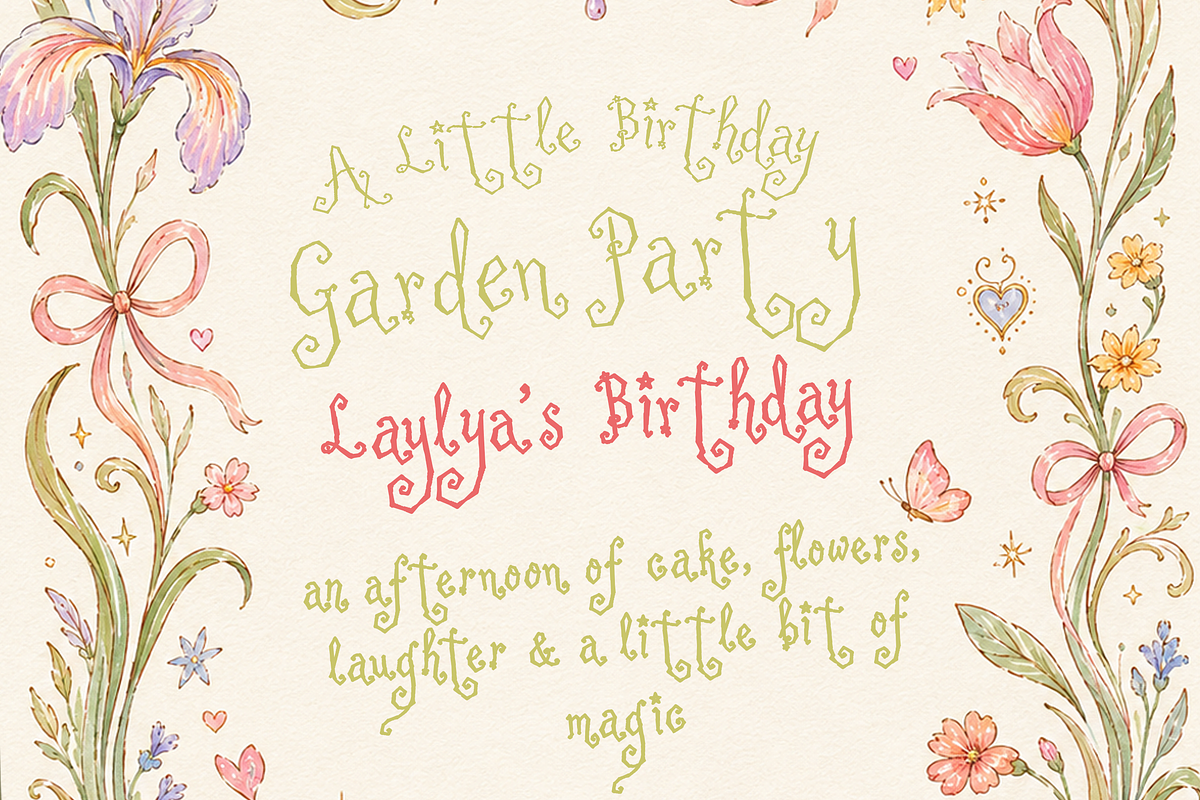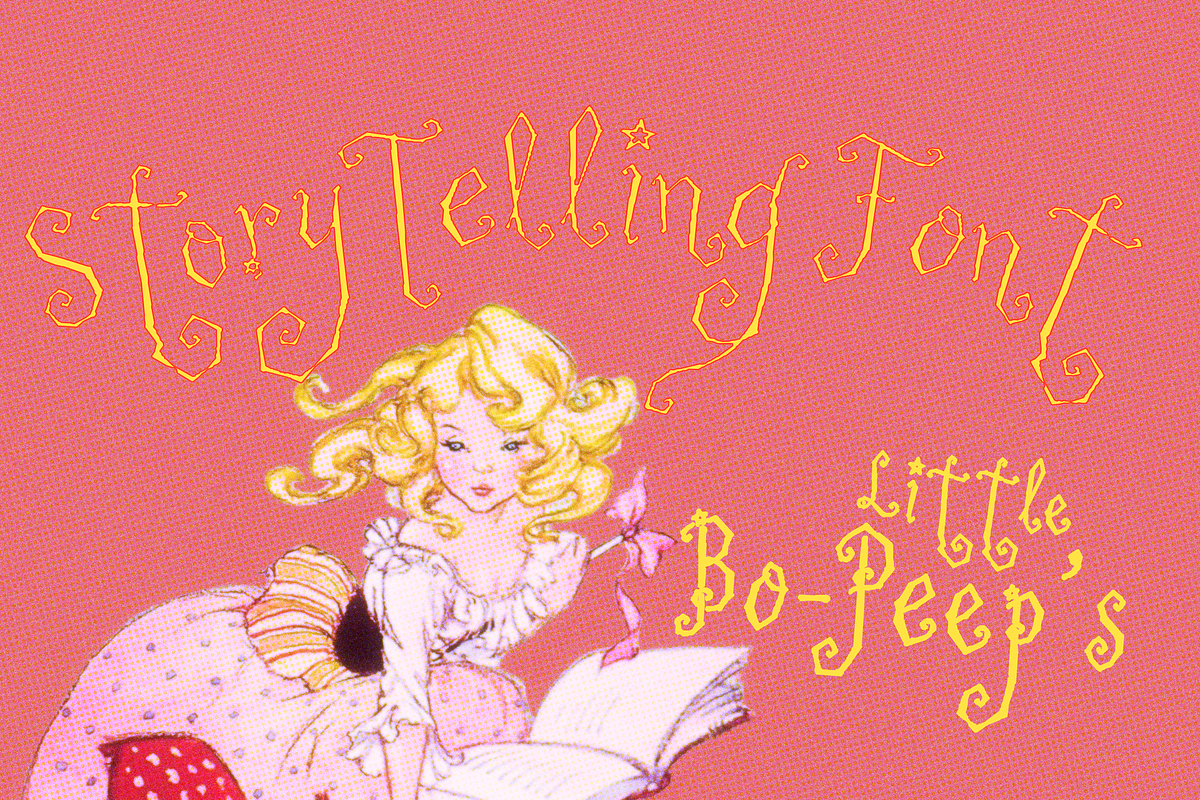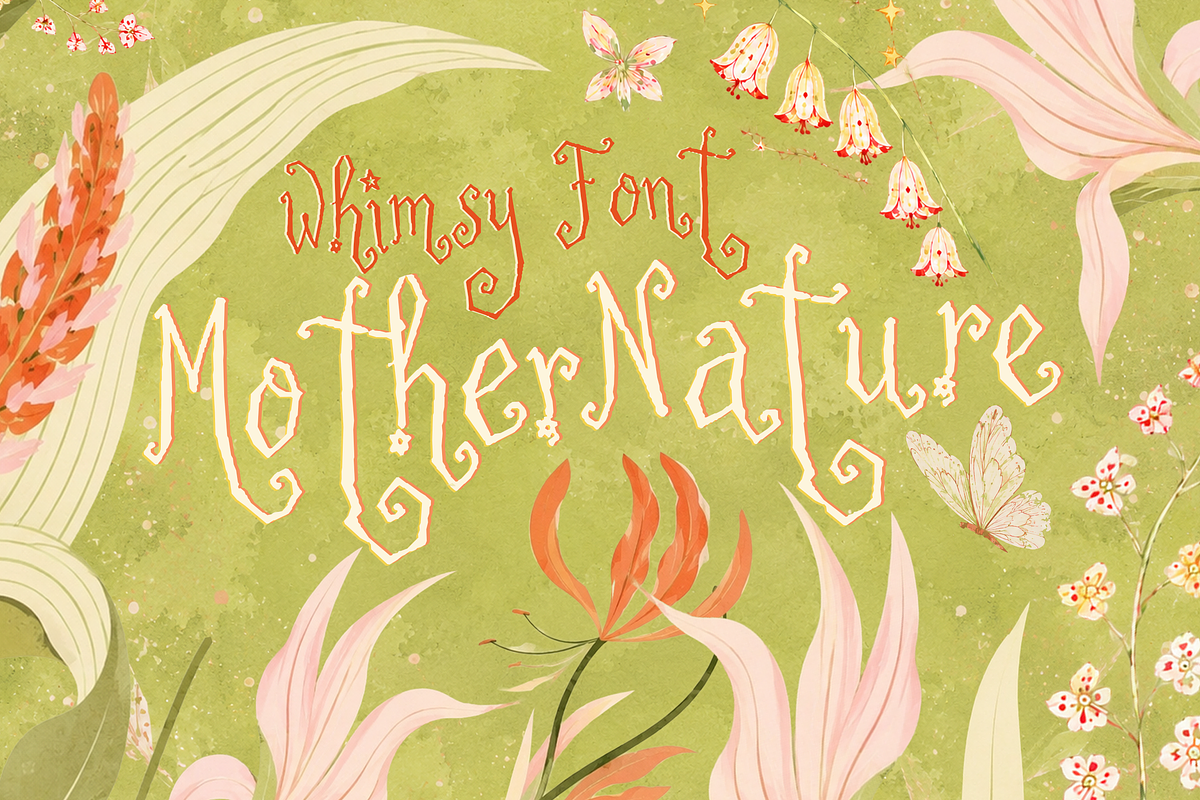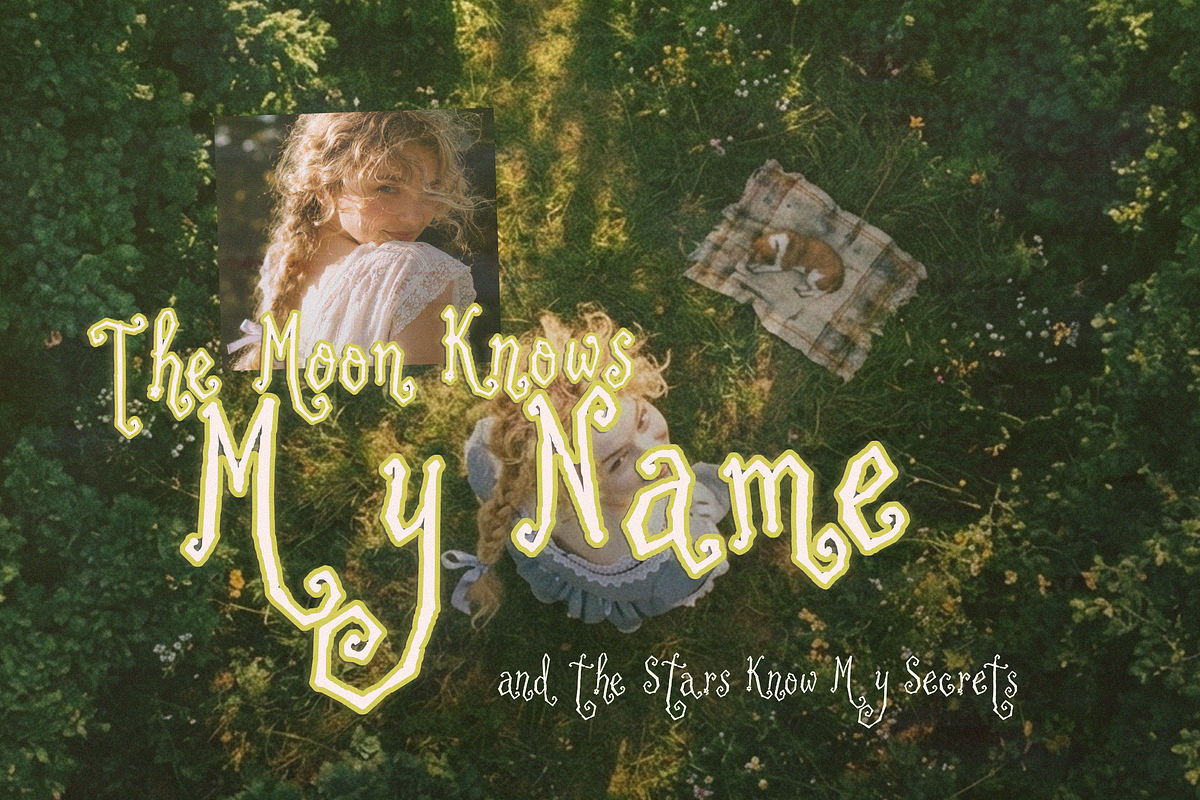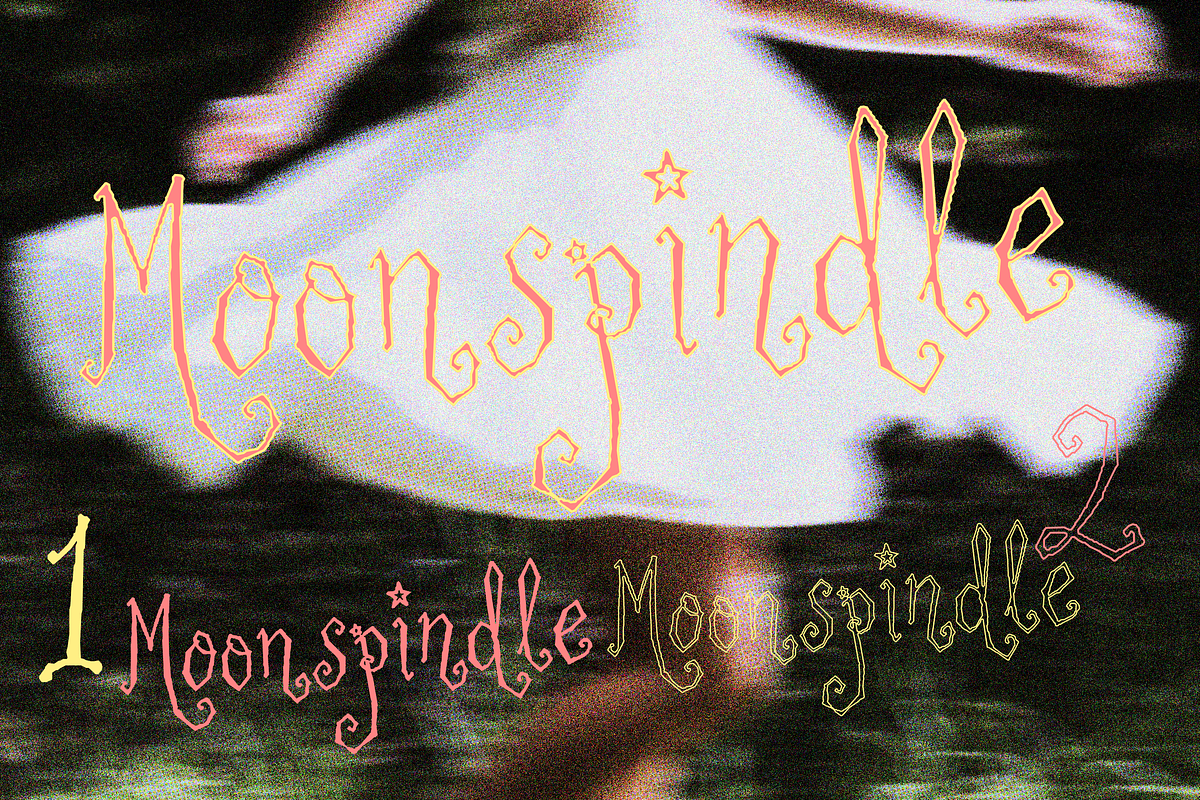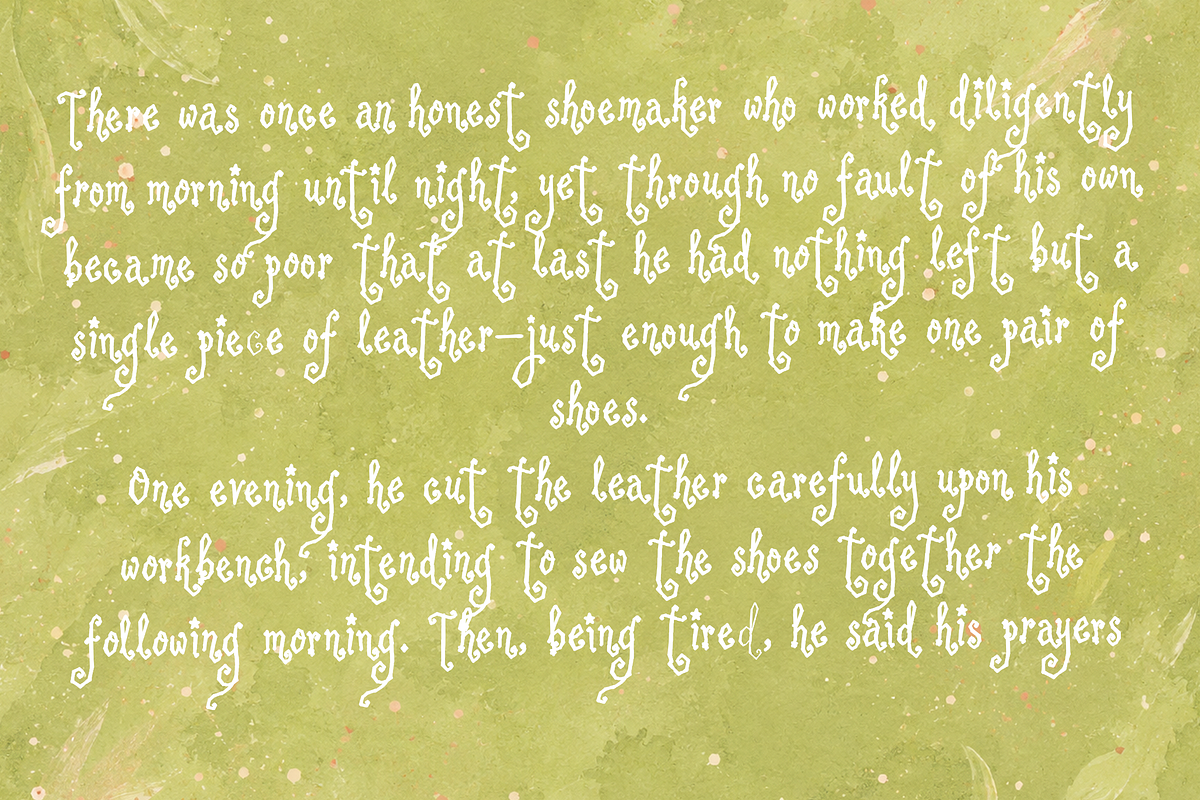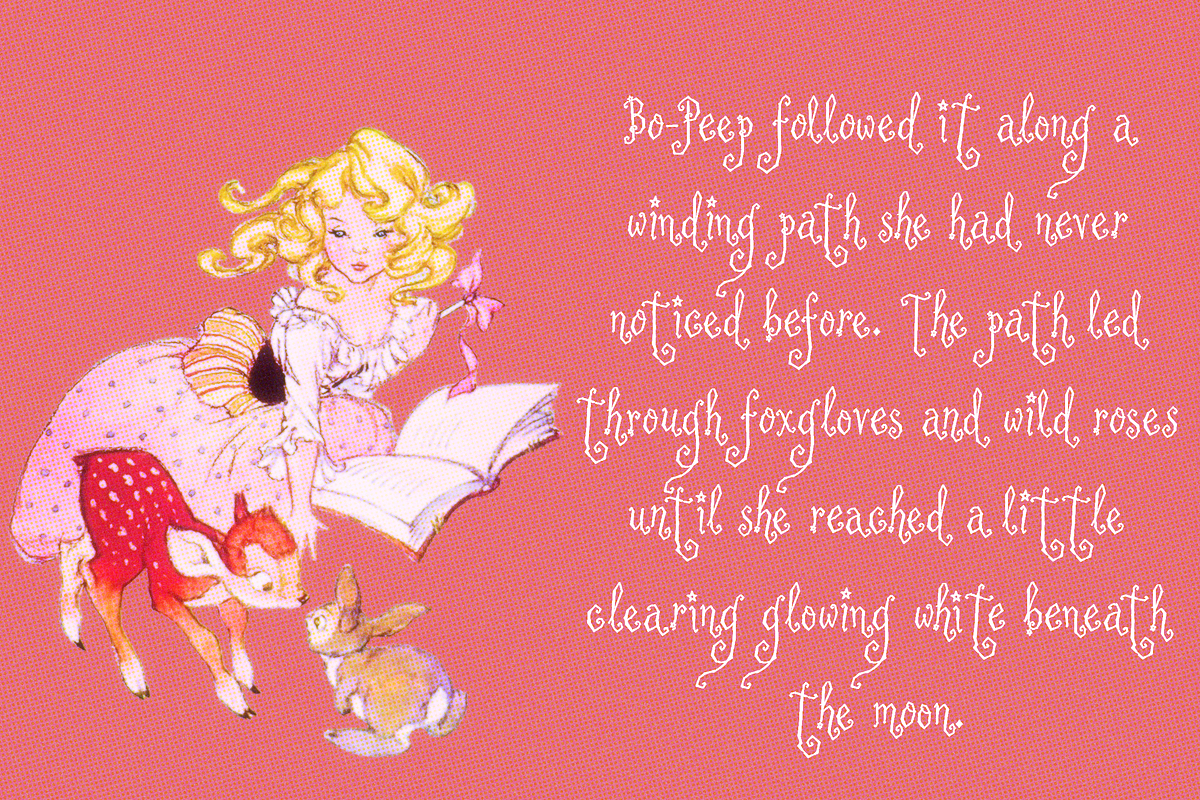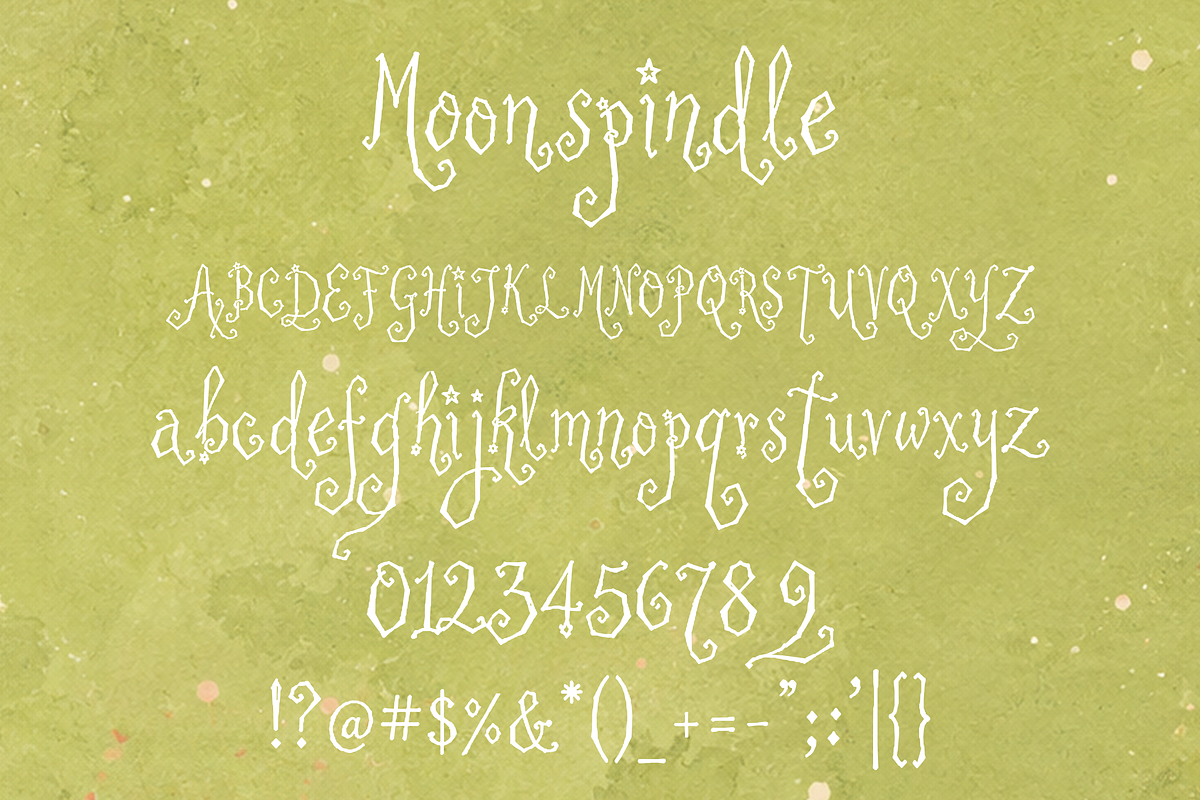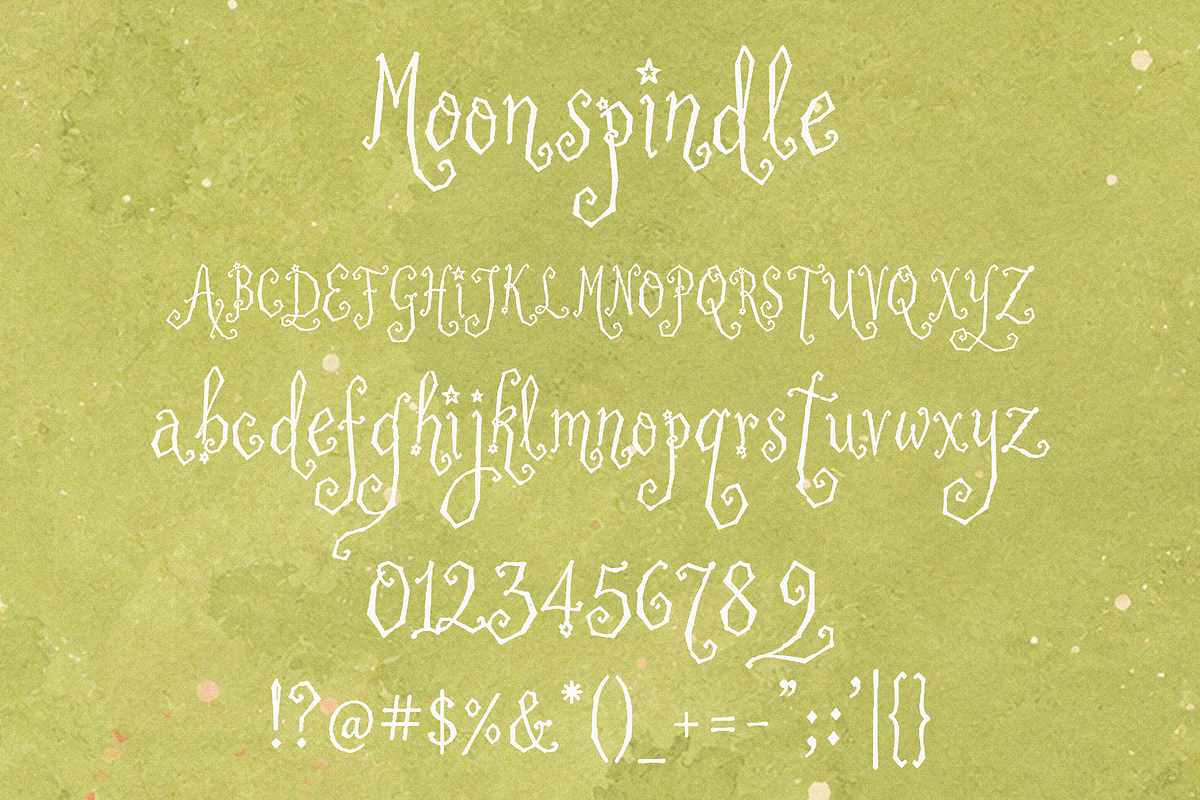
Moonspindle - Whimsy Font
Moonspindle my new whimsical display typeface with long curling strokes, angular little details, tiny stars, and a slightly mysterious storybook feeling. I wanted it to feel as though the letters belonged somewhere between an old fairy-tale book, a handwritten garden sign, and something found under moonlight.
The letterforms are intentionally playful and imperfect, with exaggerated descenders, curled terminals, narrow shapes, and unexpected decorative details throughout. It works beautifully when you want typography to become part of the illustration rather than simply sit on top of it.
Moonspindle comes in three versions, so you can move from a stronger statement to something delicate and airy:
Moonspindle — the original solid style, perfect for titles and readable display text. Moonspindle Outline — a decorative outlined version with more graphic presence. Moonspindle Outline Fine — a lighter, finer outline for delicate layouts and subtle details.
The family includes uppercase and lowercase letters, numbers, punctuation, and symbols, making it useful for both short display pieces and longer whimsical compositions.
Moonspindle feels especially at home in children's books, fairy-tale projects, invitations, birthday designs, botanical artwork, packaging, posters, book covers, dreamy branding, stationery, scrapbook designs, cottage-inspired projects, and magical editorial layouts.
It can feel sweet and playful in soft pastels, strange and enchanting against darker photography, or beautifully nostalgic when paired with paper textures, flowers, illustrations, and grain.